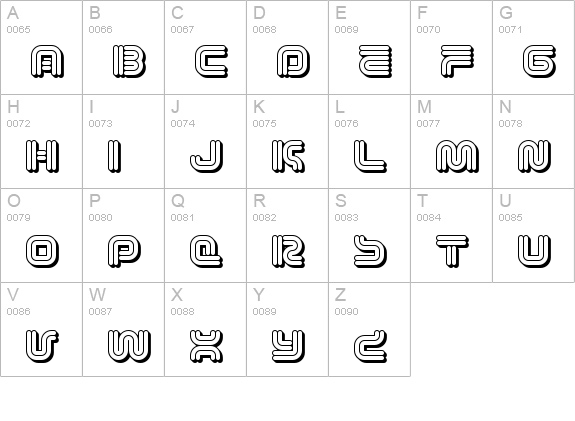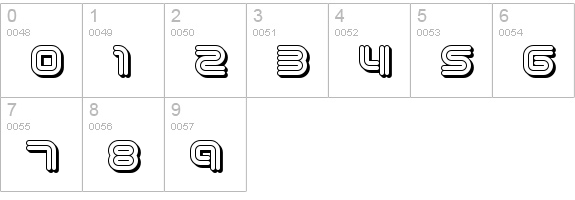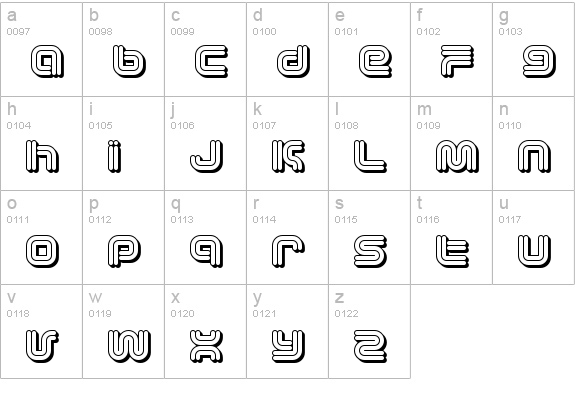
Vectroid Cosmo Font Details
Introducing the mesmerizing Vectroid Cosmo font, a stunning display typeface that will transport you to the depths of the cosmos. With its futuristic and otherworldly design, this font captures the essence of space exploration and technological advancement. Featuring a harmonious blend of sharp lines, geometric shapes, and unique letterforms, Vectroid Cosmo is a true visual masterpiece. Each character is meticulously crafted to evoke a sense of awe and wonder, making it the perfect choice for any project that aims to make a bold statement. But what truly sets Vectroid Cosmo apart is its versatility. Whether you're designing a sci-fi movie poster, a futuristic logo, or a cutting-edge website, this font will effortlessly elevate your work to new heights. Its distinct style will captivate viewers and leave a lasting impression. And the best part? Vectroid Cosmo is free! Yes, you read that right. This extraordinary font can be freely downloaded at FontsMarket.com, allowing you to enhance your creations without breaking the bank. Now, everyone can experience the cosmic allure of Vectroid Cosmo and unleash their creativity without limitations. So, what are you waiting for? Dive into the endless possibilities of design with Vectroid Cosmo. Let this font transport you to a realm where imagination knows no bounds. Download it today from FontsMarket.com and embark on a cosmic journey that will leave an indelible mark on your creative endeavors.